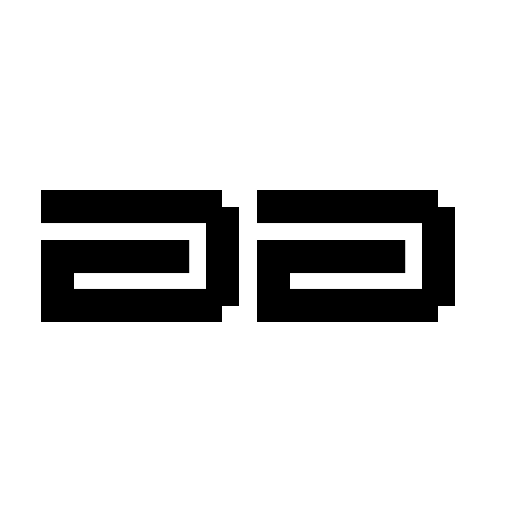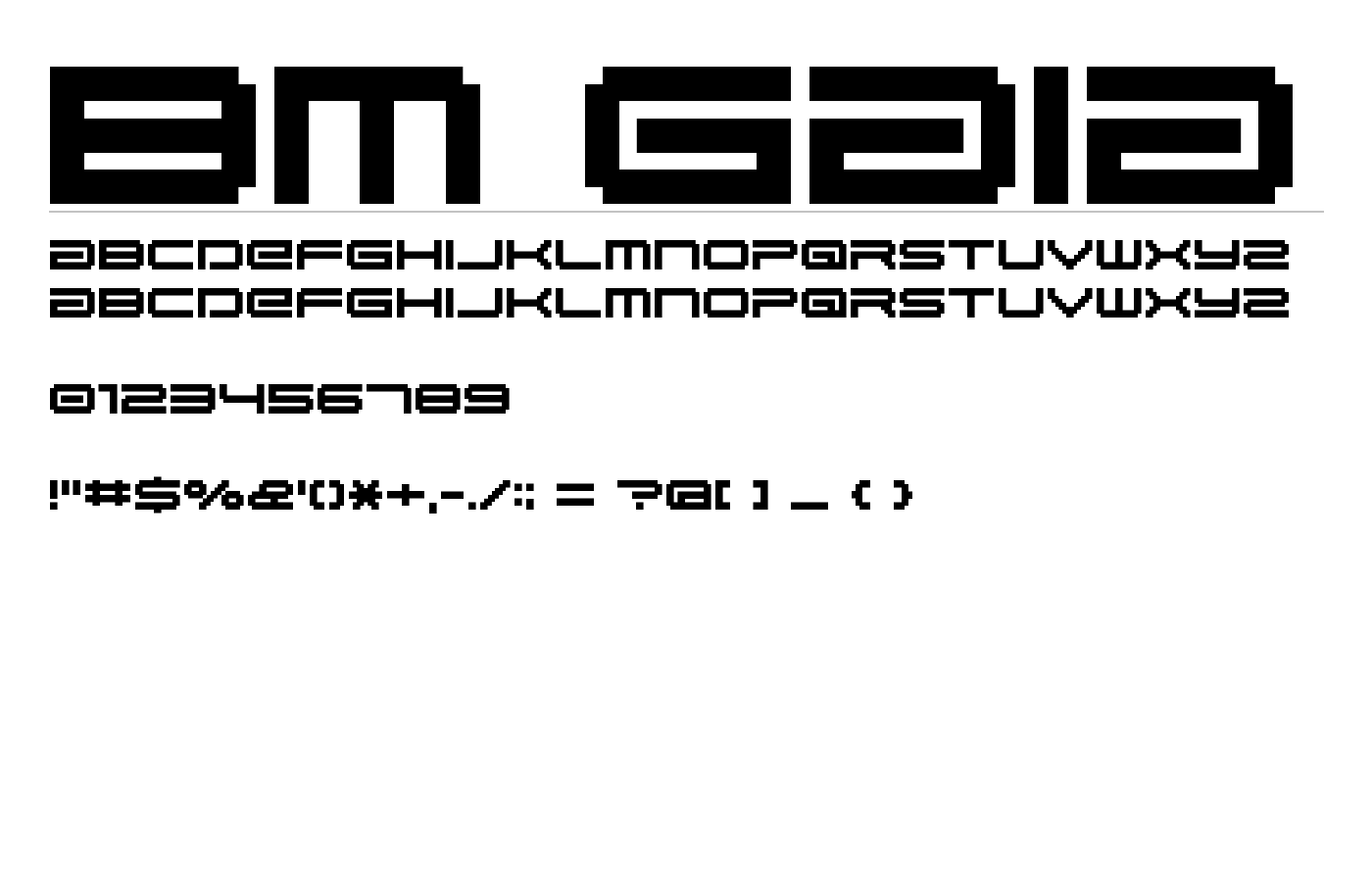
BM Gaia is a bold, geometric sans serif font with a strong digital and pixelated aesthetic, featuring uniform stroke weights and blocky, squared shapes. Its futuristic and tech-inspired style makes it ideal for use in video game titles, technology branding, and digital-themed designs where a modern, edgy look is desired. The font’s clear and compact letterforms ensure good readability at display sizes, perfect for headlines and logos that need a distinctive, strong presence.
BM gaia Font